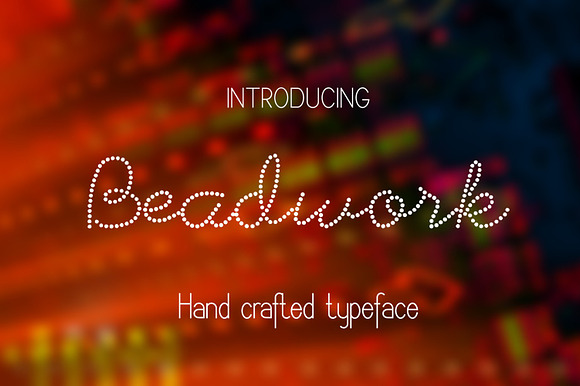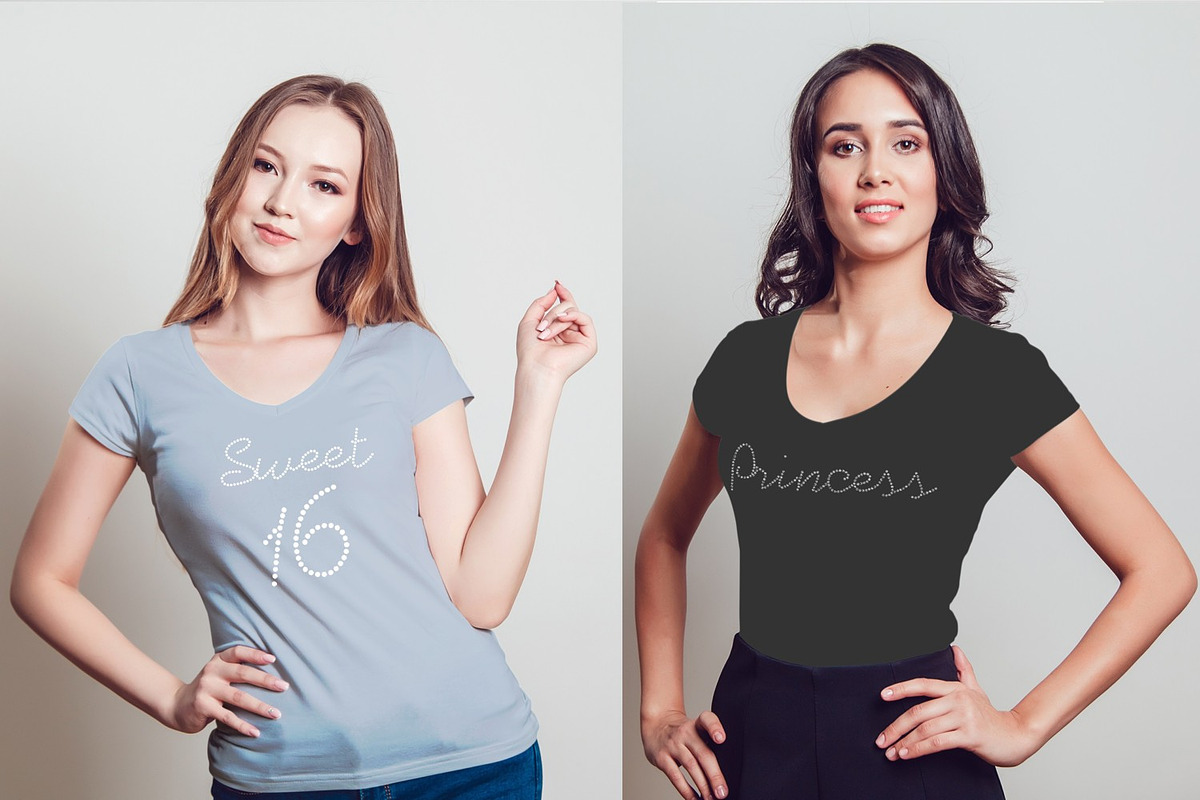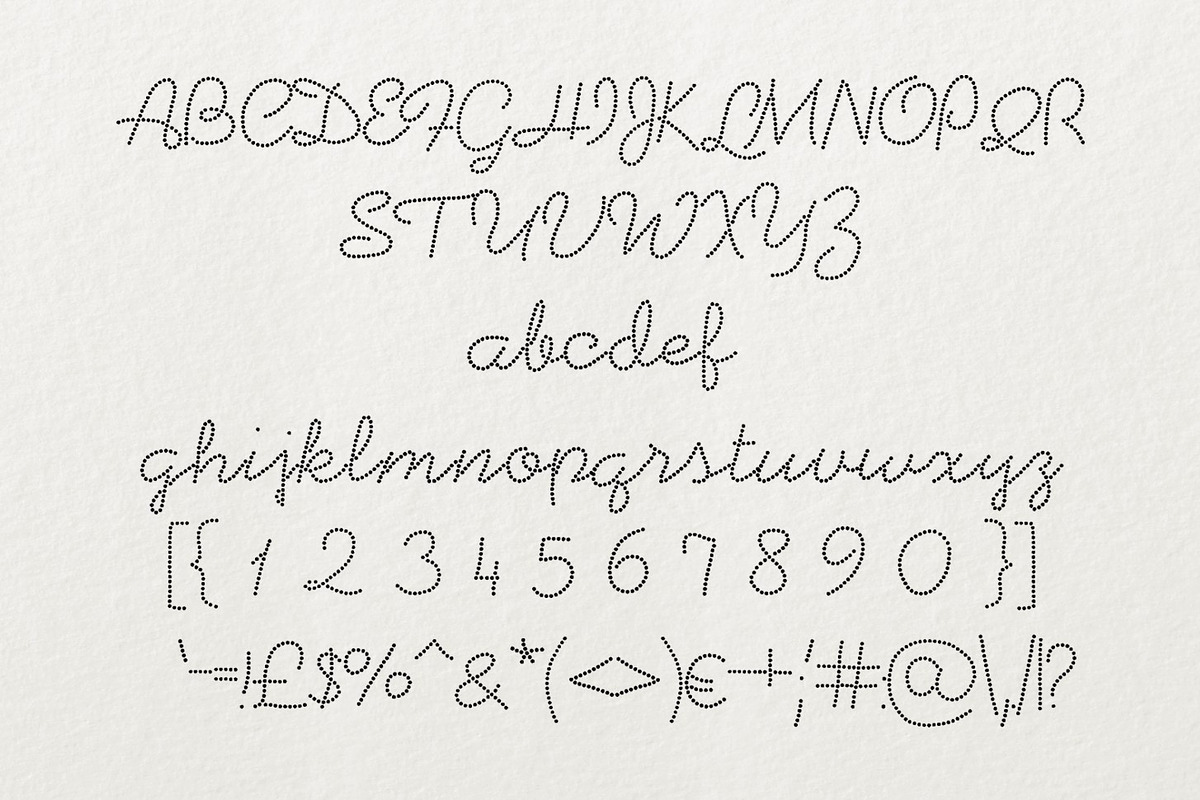
Beadwork Font
Beadwork is a Rhinestones inspired typeface, drawn by me on a digital tablet. Beadwork is great for t-shirts design, titling, stamping and more!